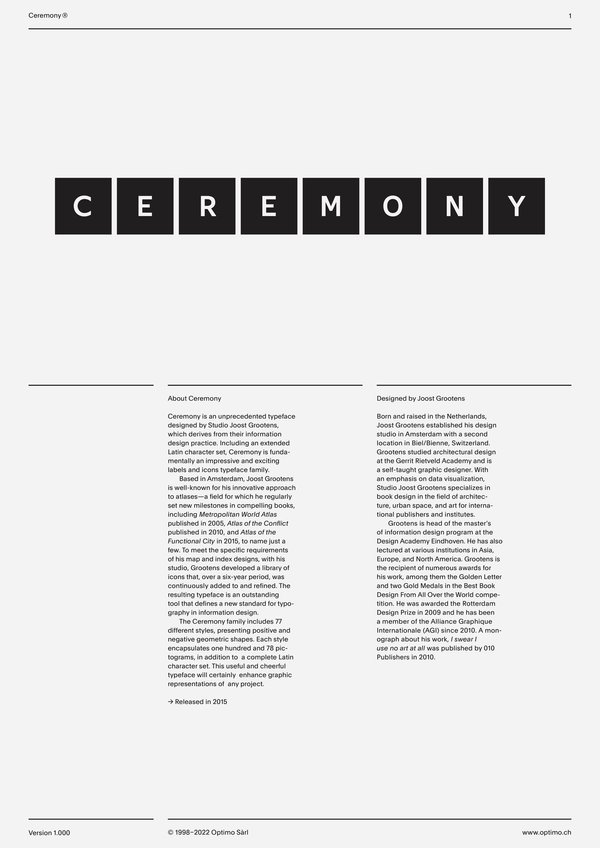
Ceremony
Contextual Alternates
[calt]
This feature adapts a glyph after its surrounding context. This feature is usually active by default in Adobe applications. For Ceremony, it gives the direct access to the pictograms by typing a simple reference (e.g. p 1.1).
Ceremony is an unprecedented typeface designed by Studio Joost Grootens, which derives from their information design practice. Including an extended Latin character set, Ceremony is fundamentally an impressive and exciting labels and icons typeface family.
Based in Amsterdam, Joost Grootens is well-known for his innovative approach to atlases—a field for which he regularly set new milestones in compelling books, including Metropolitan World Atlas published in 2005, Atlas of the Conflict published in 2010, and Atlas of the Functional City in 2015, to name just a few. To meet the specific requirements of his map and index designs, with his studio, Grootens developed a library of icons that, over a six-year period, was continuously added to and refined. The resulting typeface is an outstanding tool that defines a new standard for typography in information design.
The Ceremony family includes seventy-seven different styles, presenting positive and negative geometric shapes. Each style encapsulates one hundred and seventy-eight pictograms, in addition to a complete Latin character set. This useful and cheerful typeface will certainly enhance graphic representations of any project.